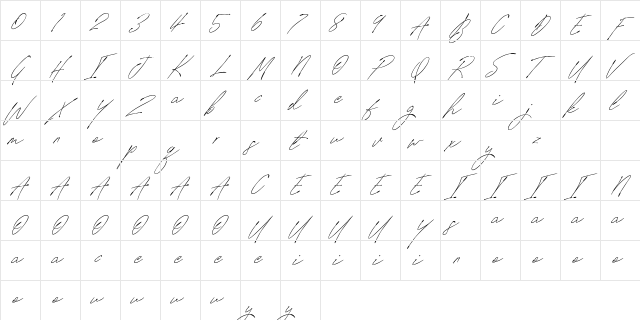
SignatureVP Regular
Design Context for SignatureVP Typeface
SignatureVP is a composed and adaptable typeface that performs quietly and consistently across a wide range of design contexts.